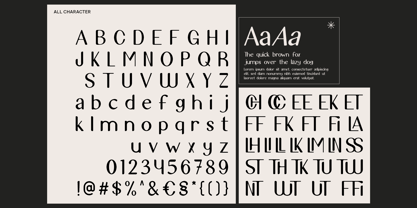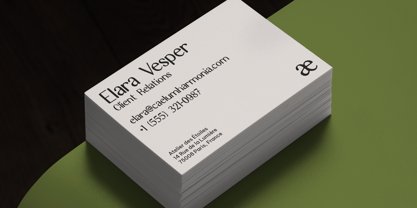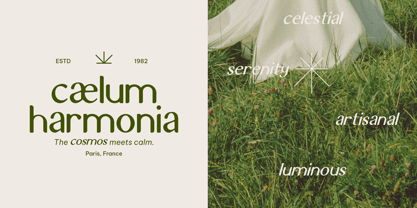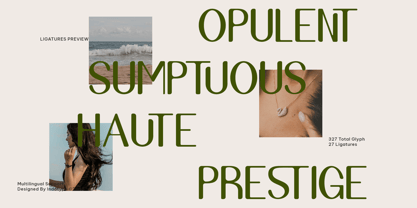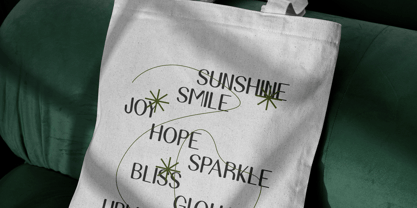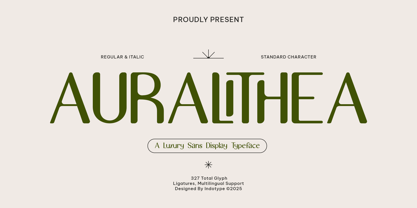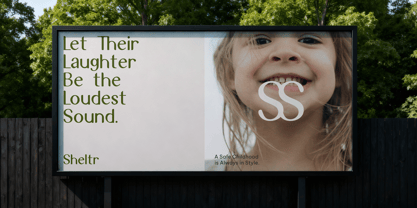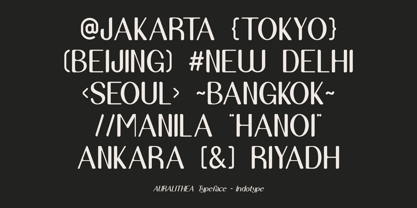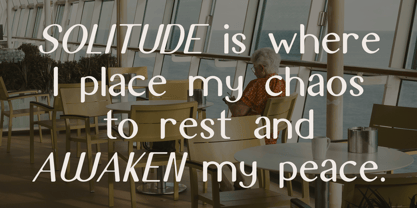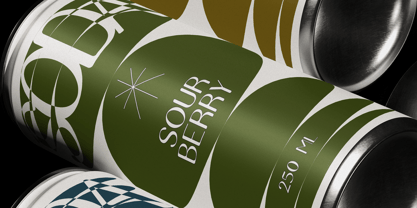
IT Auralithea
by Indotype
The IT Auralithea Font Family was designed by Frederik Aristaputra and published by Indotype. IT Auralithea contains 2 styles and family package options. More about this family
Auralithea is the epitome of sophisticated minimalism, a luxury sans-serif display typeface designed to elevate your brand with understated elegance. Characterized by its clean lines, refined proportions, and impeccable balance, Auralithea exudes a sense of exclusive quality and modern prestige. It masterfully blends clarity with character, making it perfect for brands that wish to communicate authority and style without saying a word. This comprehensive family includes both Regular and Italic styles, offering tonal versatility for your designs. With an extensive set of 327 total glyphs, advanced typographic features like ligatures, and full multilingual support, Auralithea is as functional as it is beautiful. It is the definitive choice for high-end fashion labels, luxury product packaging, sophisticated editorial headlines, and any identity that demands a timeless, global appeal. • Ideal for: Luxury Fashion Branding, Cosmetic Packaging, Premium Logotypes, Editorial Headlines, Corporate Sophistication, High-End Websites. • Classification: Display, Sans-Serif, Luxury, Geometric, Modern. • Attributes: Elegant, Refined, Minimalist, Prestigious, Clean, Versatile, Sophisticated.